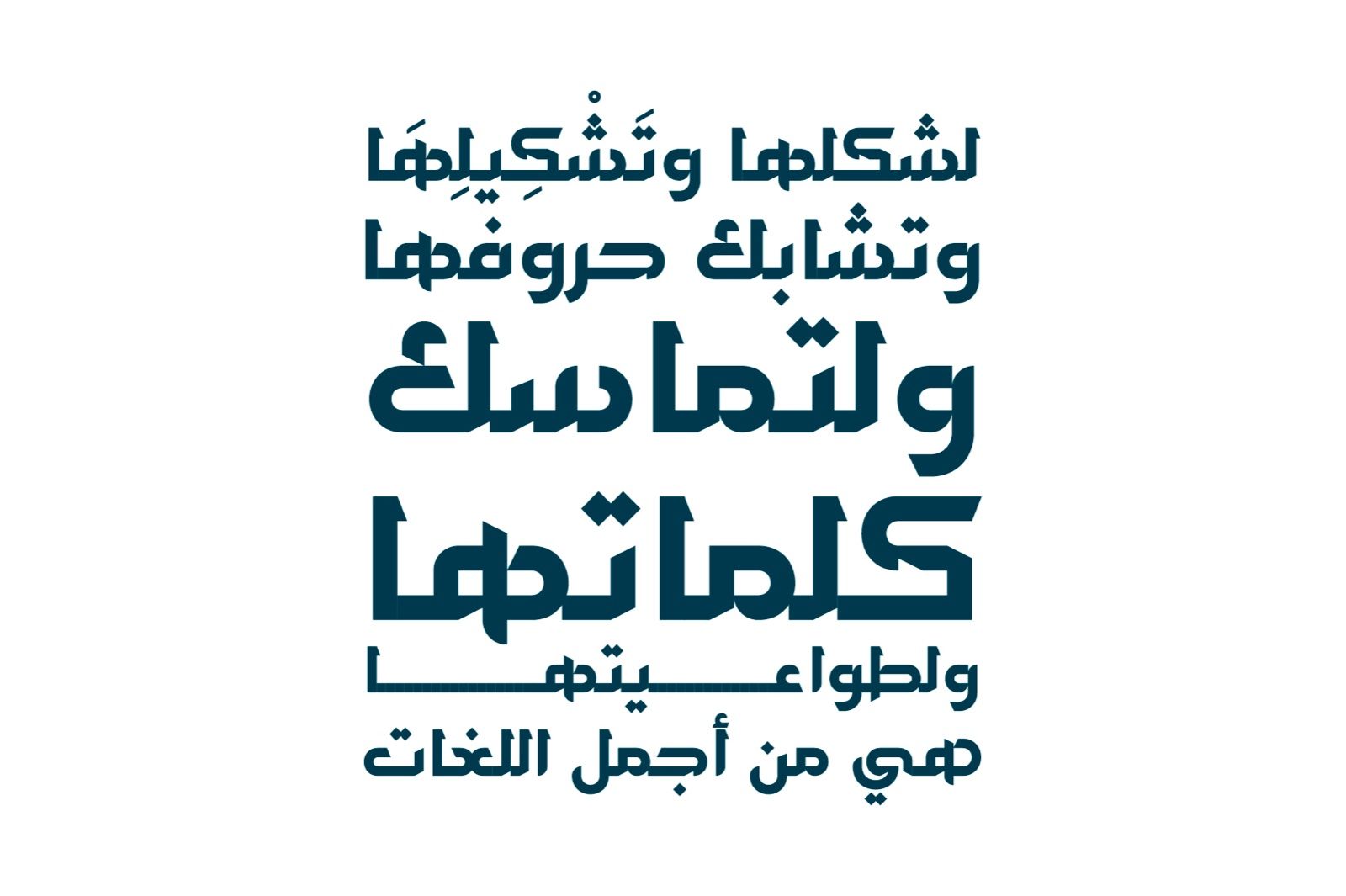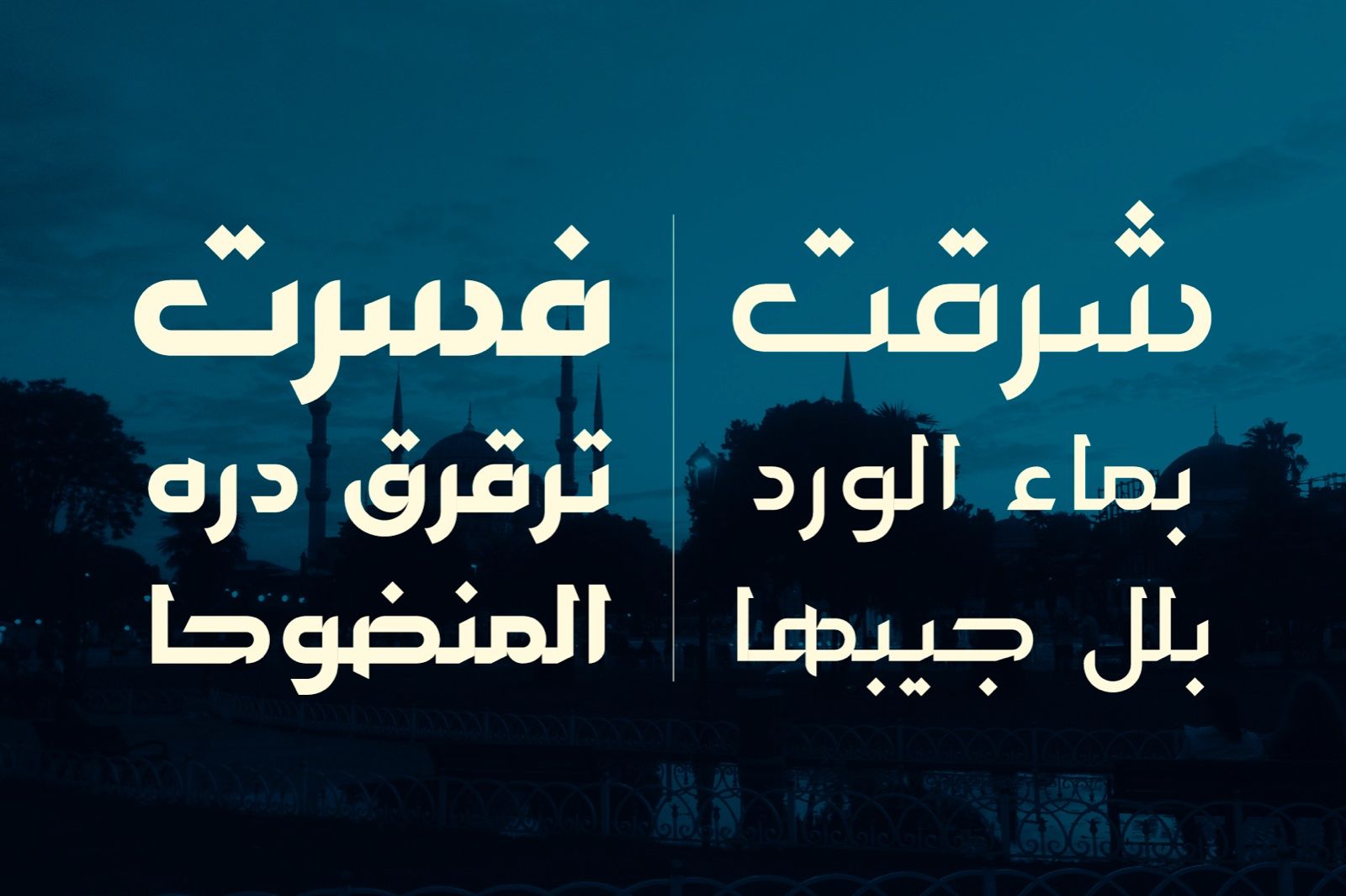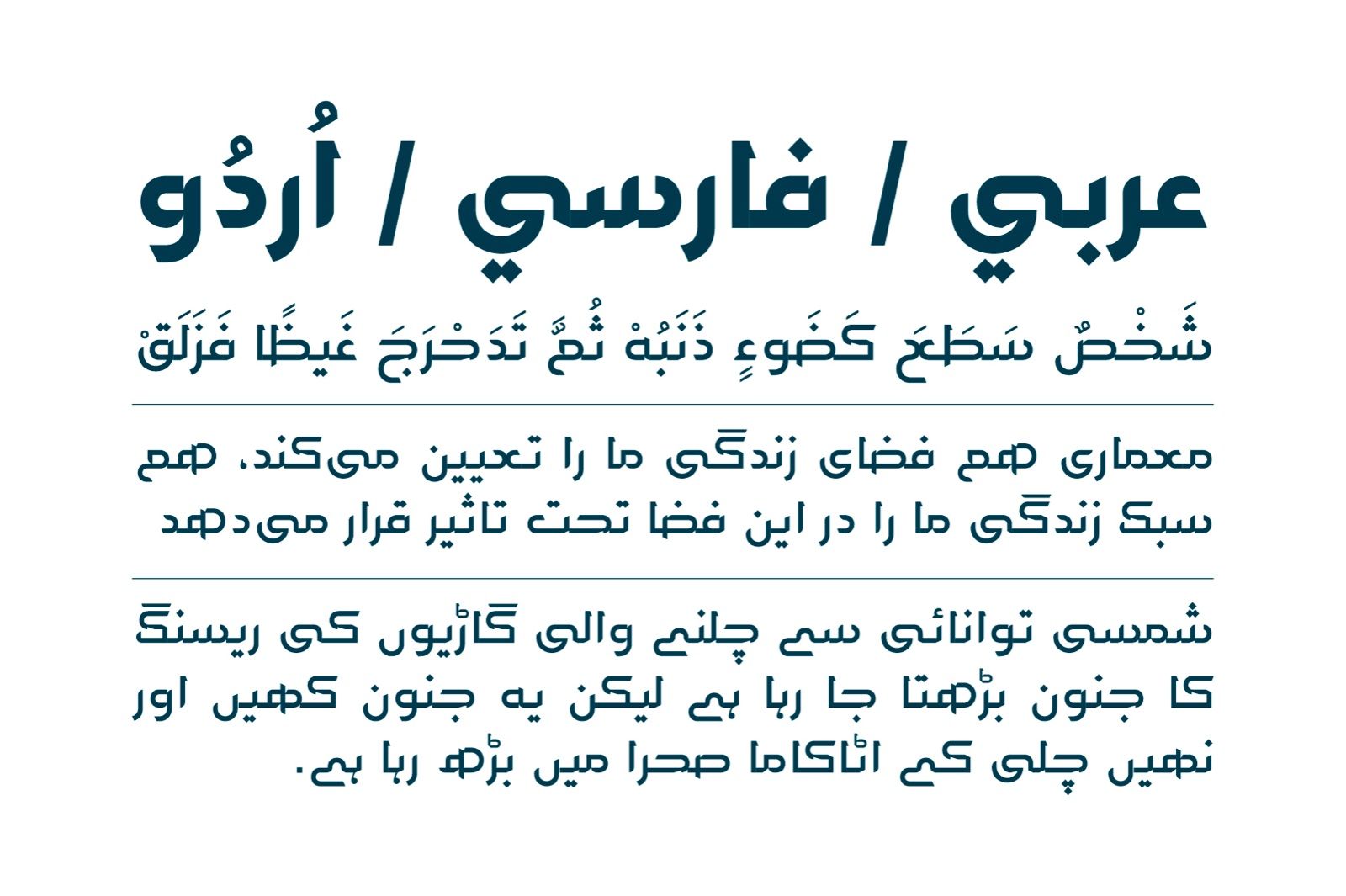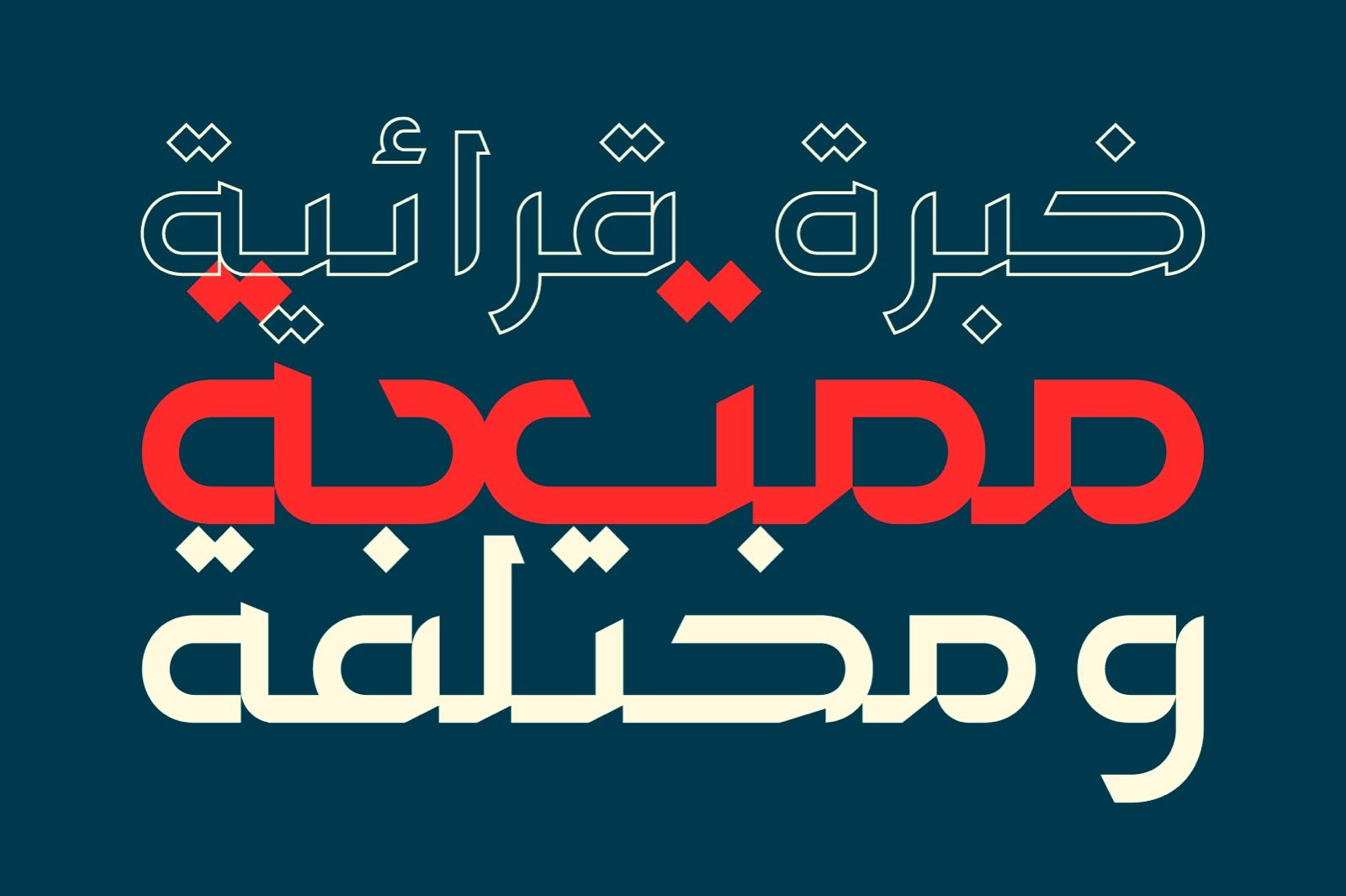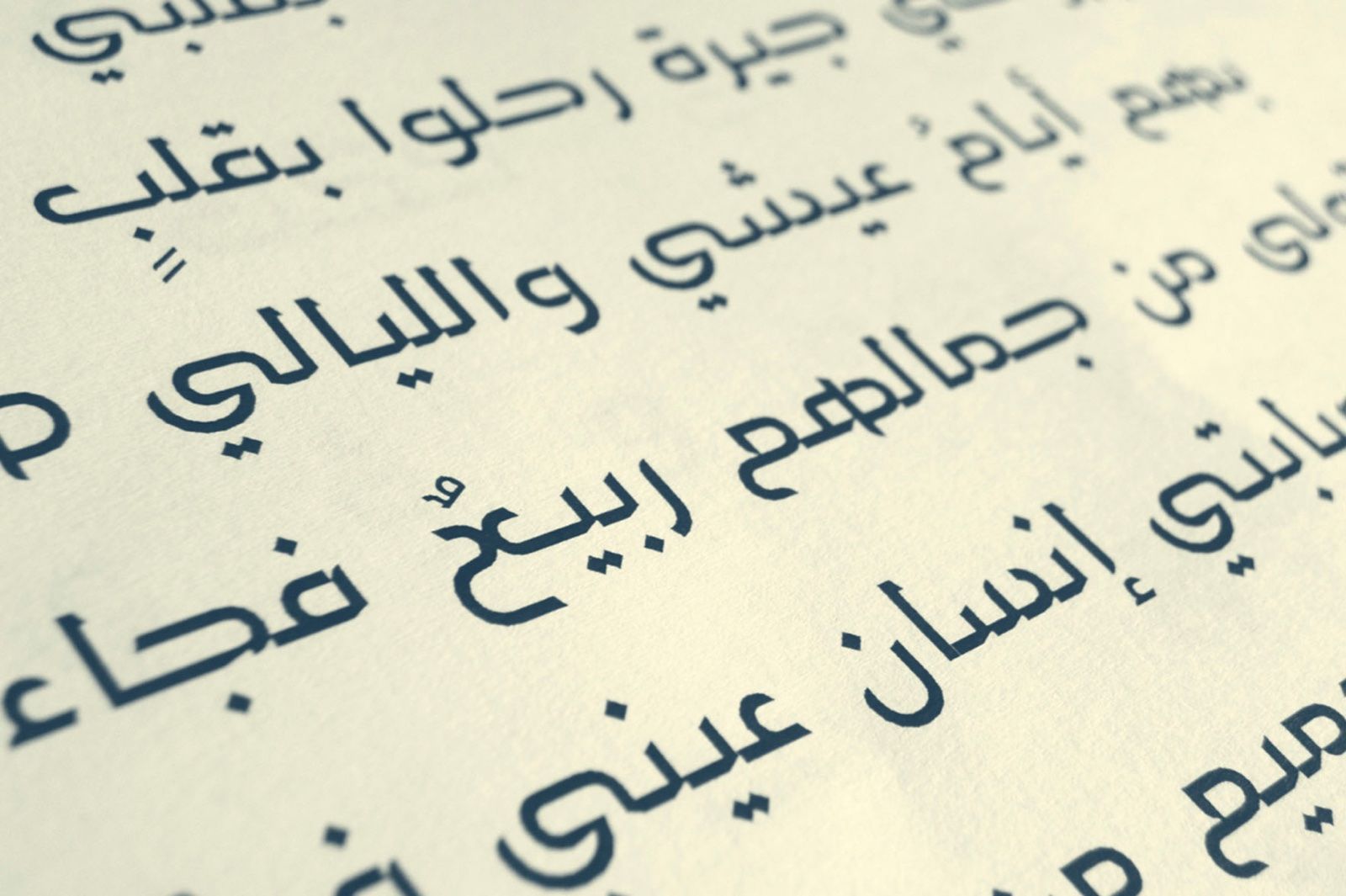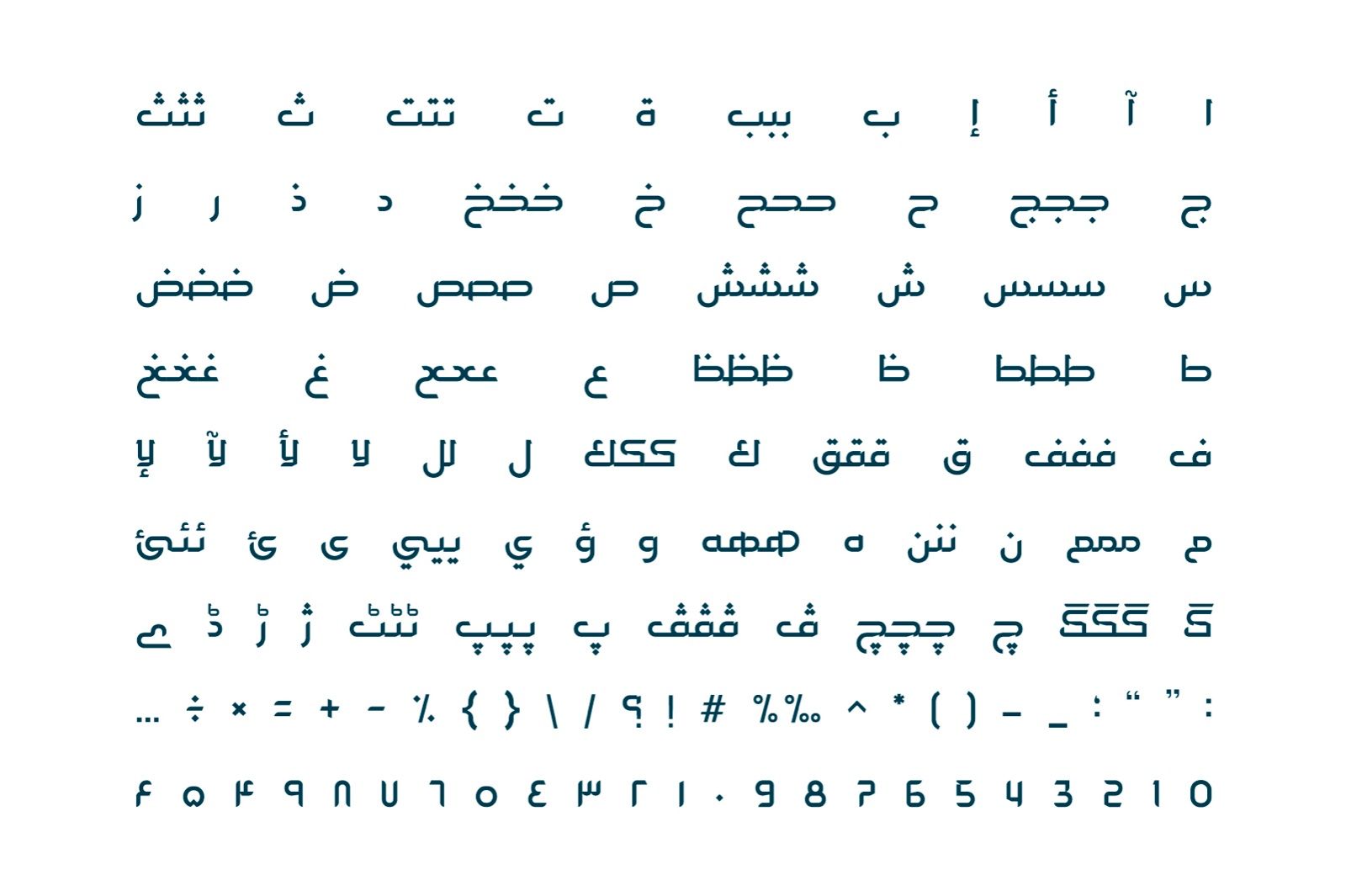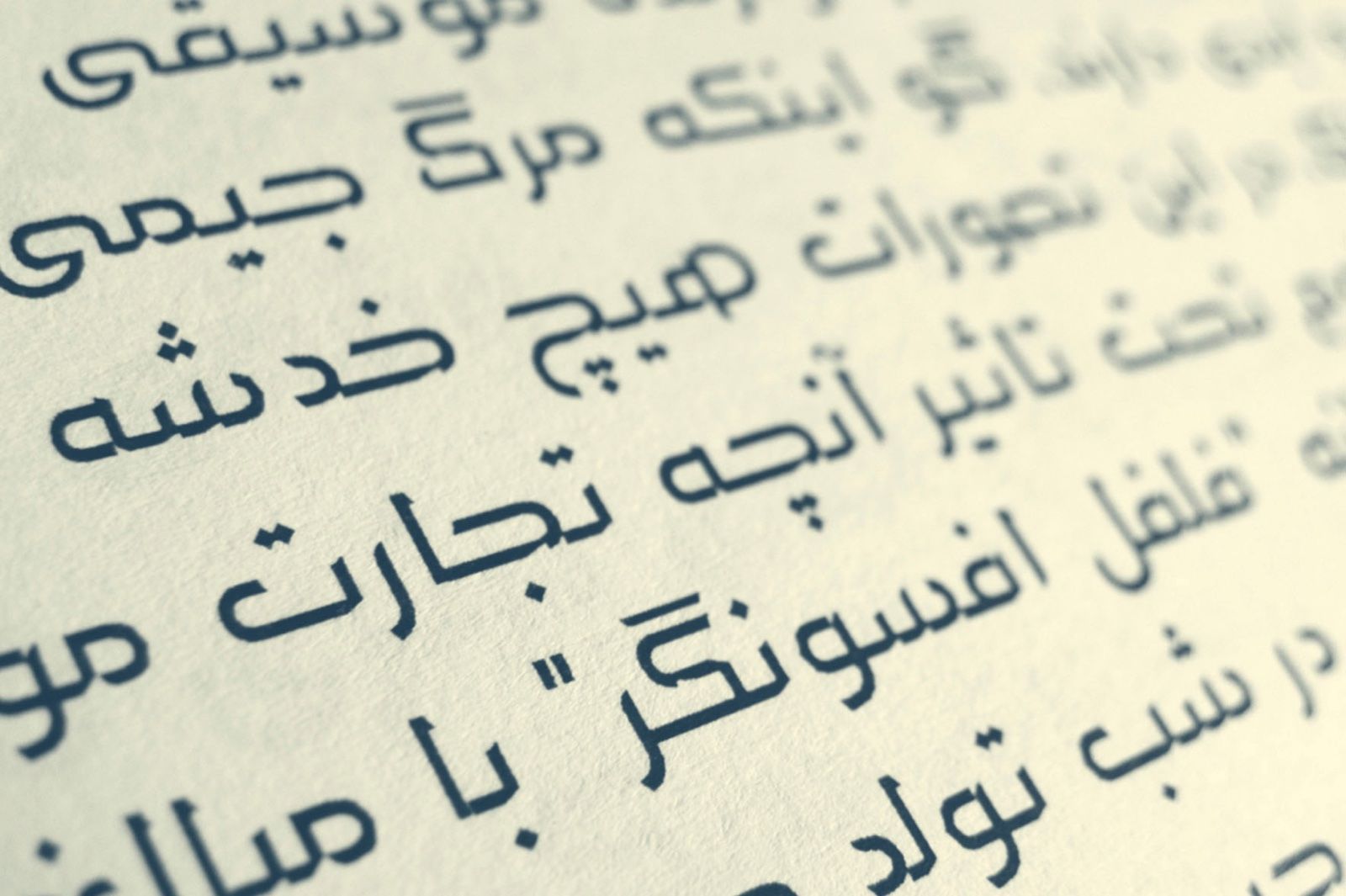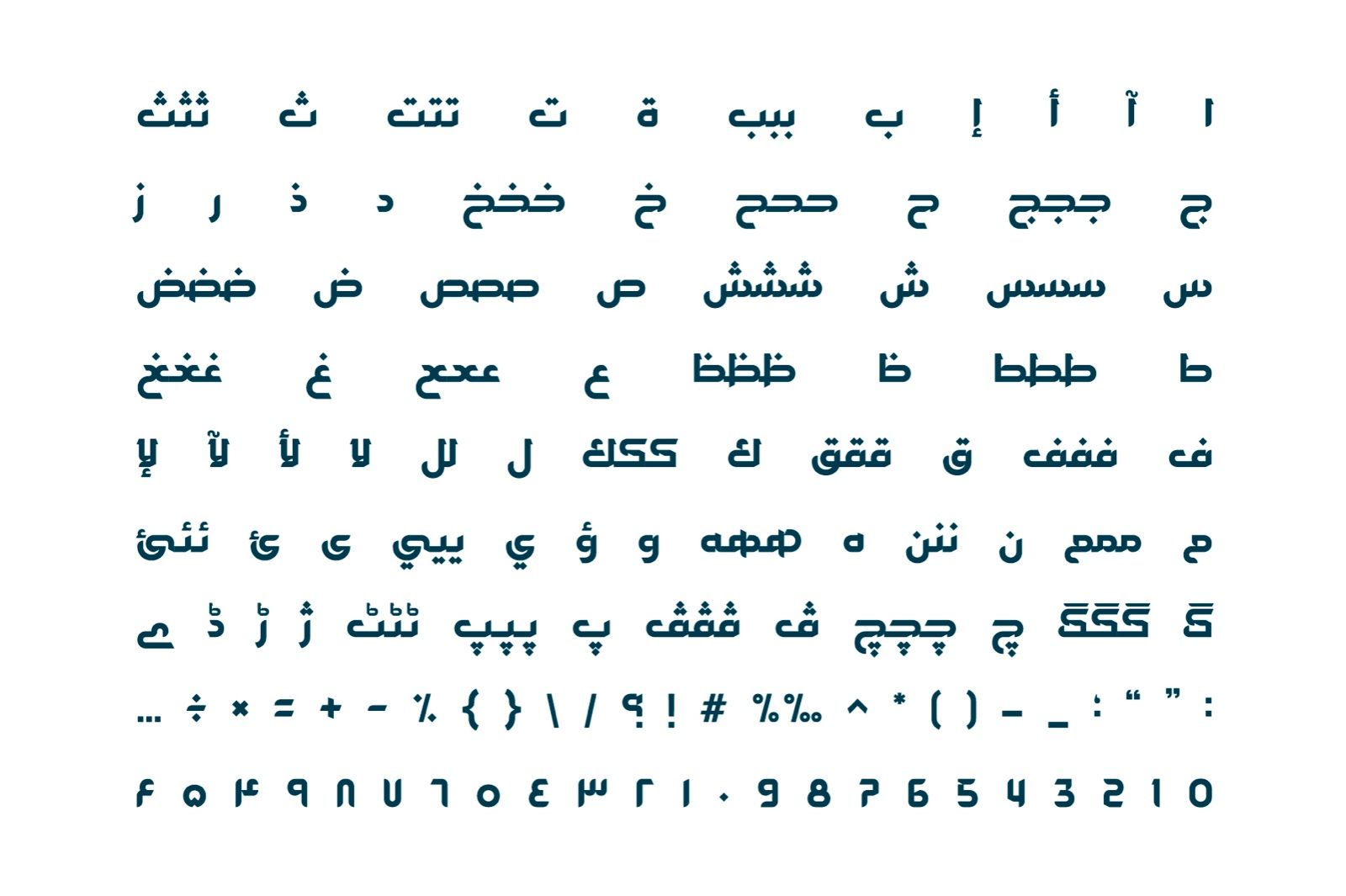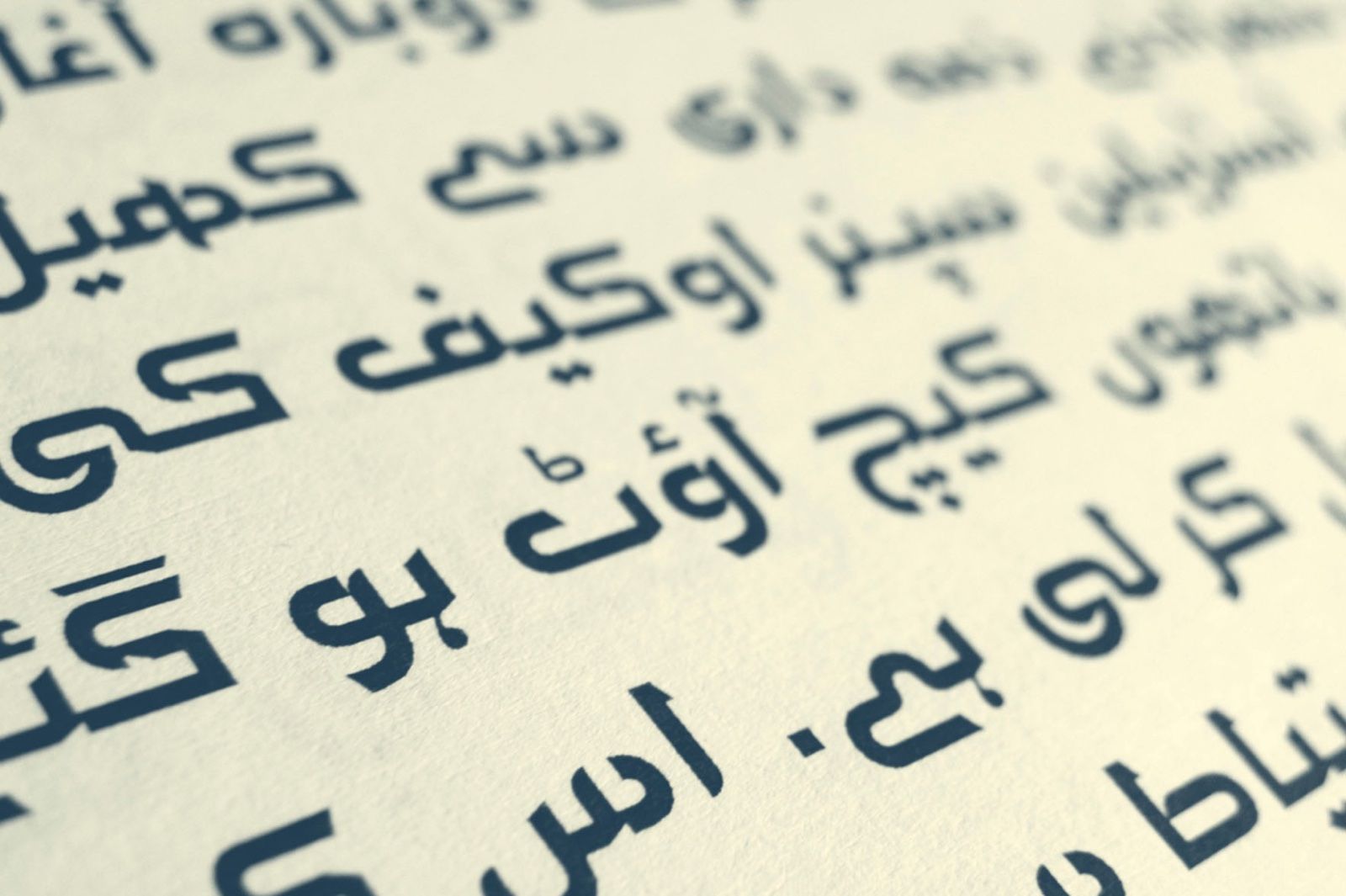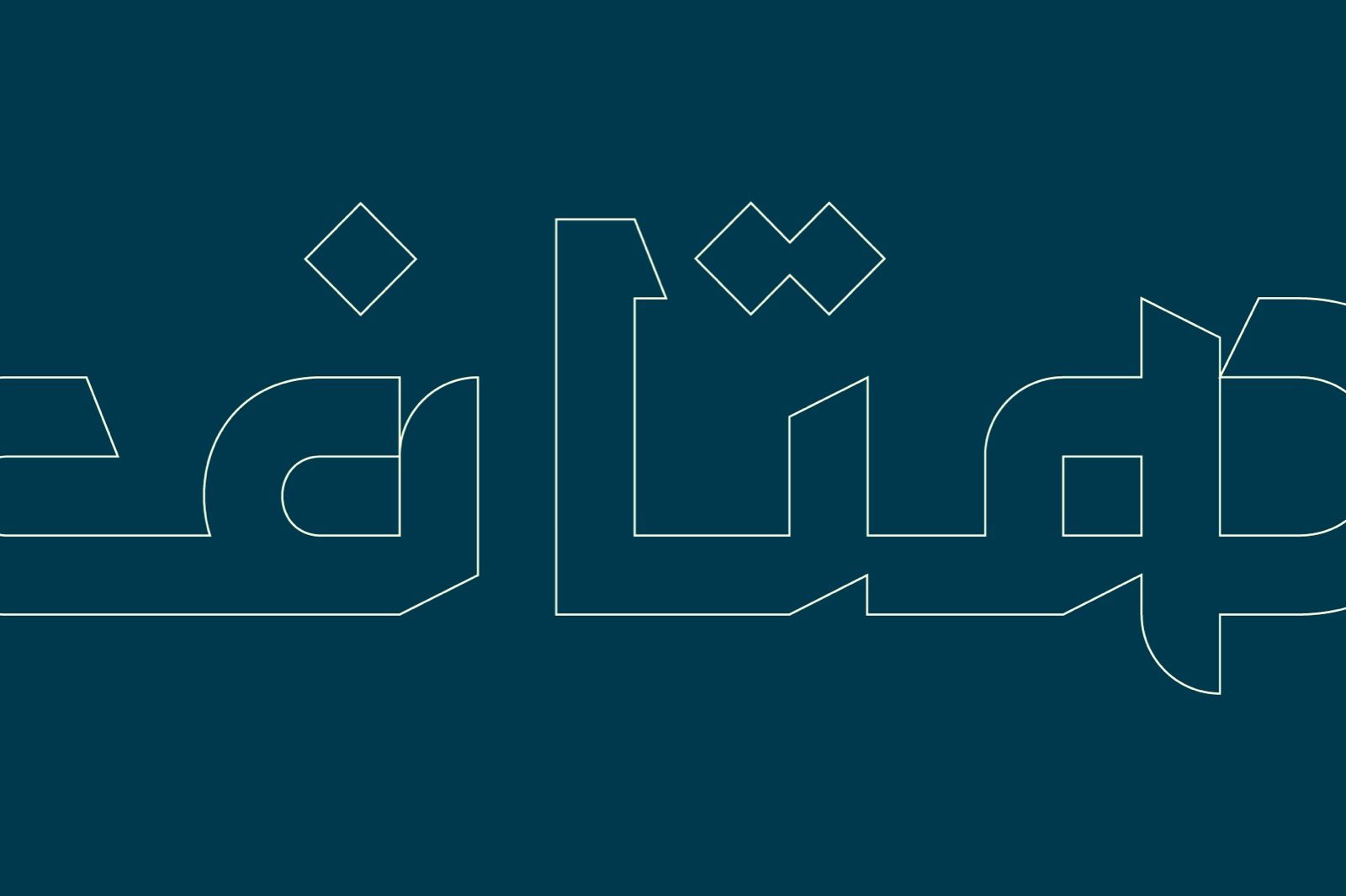
Hetaf is an Arabic typeface designed to offer a unique yet pleasant reading experience. Its characters feature a blend of notches and refined edges, deviating from conventional Arabic script styles. This typeface is suitable for both print and digital media, available in two weights: regular and bold.